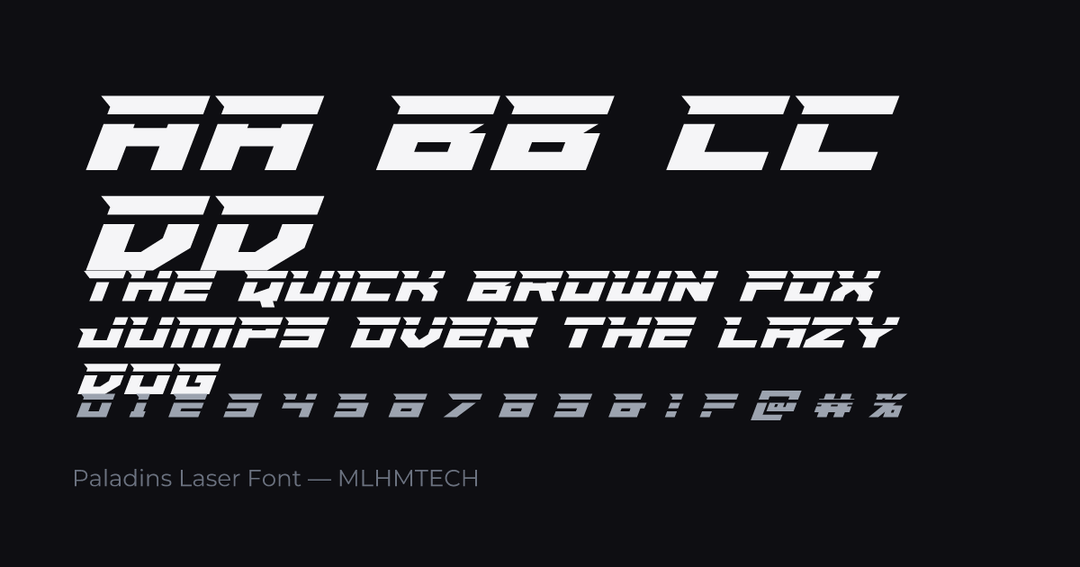
Paladins Laser Font
Paladins Laser is a futuristic display font with sharp, angular letterforms. Ideal for gaming thumbnails, esports logos, and sci-fi titles.
Paladins Laser is a bold, geometric display font that evokes a laser-cut or sci-fi aesthetic. Its sharp edges and uniform stroke widths make it highly legible at large sizes, perfect for headlines, posters, and branding.
This font is inspired by the clean lines of futuristic technology and the energy of competitive gaming. It works well for YouTube thumbnails, Twitch overlays, and any project that needs a modern, high-impact look.